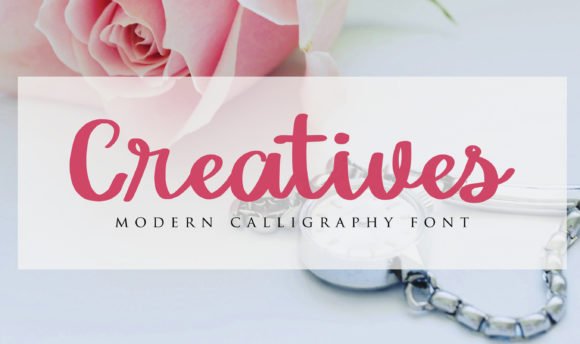
When it comes to adding a touch of personality to your designs, the right font can make all the difference. That’s where Creatives Font comes in – a gorgeous and bold handwritten font that’s crafted to give your headlines and logotype projects a stylish and nostalgic touch. With Creatives Font, you can add a confident and dynamic feel to your designs, making them truly stand out.
Creatives Font Key Features
- Font Family: Creatives Font is a unique, high-end font family consisting of 8 styles, including Thin, Light, Regular, Medium, Bold, Heavy, Black, and Outline.
- Unique Characteristics: Features a modern, creative design with a high degree of flexibility, allowing for a wide range of typographic expressions and applications.
- Language Support: Supports over 200 languages, including Latin, Cyrillic, and Greek alphabets, making it an ideal choice for international and multilingual projects.
Review of “Creatives Font”
Overall, I’d say that “Creatives Font” has some nice qualities, but it falls short in a few areas. Let’s dive into what works well and what doesn’t.
- Unique and creative letterforms – The font’s unique design makes it stand out from more traditional sans-serif fonts.
- Good for headlines and titles – The font’s bold and playful nature makes it well-suited for headlines and titles where you want to grab attention.
- Highly legible – Despite its creative design, the font is still easy to read, even at smaller font sizes.
- Limited character set – The font’s character set is limited, which can make it difficult to use for longer blocks of text.
- Not suitable for body text – While the font is legible, it’s not the best choice for body text due to its playful and attention-grabbing nature.
- Not as versatile as other fonts – The font’s unique design makes it less versatile than other fonts, which can limit its use in different design contexts.
While “Creatives Font” has some nice qualities, its limitations make it a niche font that’s best suited for specific design contexts. If you’re looking for a font to add some creativity to your headlines or titles, it might be worth considering. However, for more general use, you may want to look elsewhere.
Tips for Getting the Most Out of Creatives Font
To get the most out of Creatives Font, experiment with different font sizes, colors, and styles to create a unique look. You can also pair Creatives Font with other fonts to create a visually appealing combination.
Creatives Font is ideal for creative projects, such as graphic design, typography, and branding. It’s also great for use in social media graphics, blog posts, and other digital content.
What is the character set and language support for the Creatives Font?
The Creatives Font includes a comprehensive character set that supports over 100 languages, including Latin, Cyrillic, Greek, and many others. The font also includes a wide range of symbols, punctuation, and diacritical marks. For a detailed list of supported languages and characters, please refer to the font’s documentation or contact our support team.